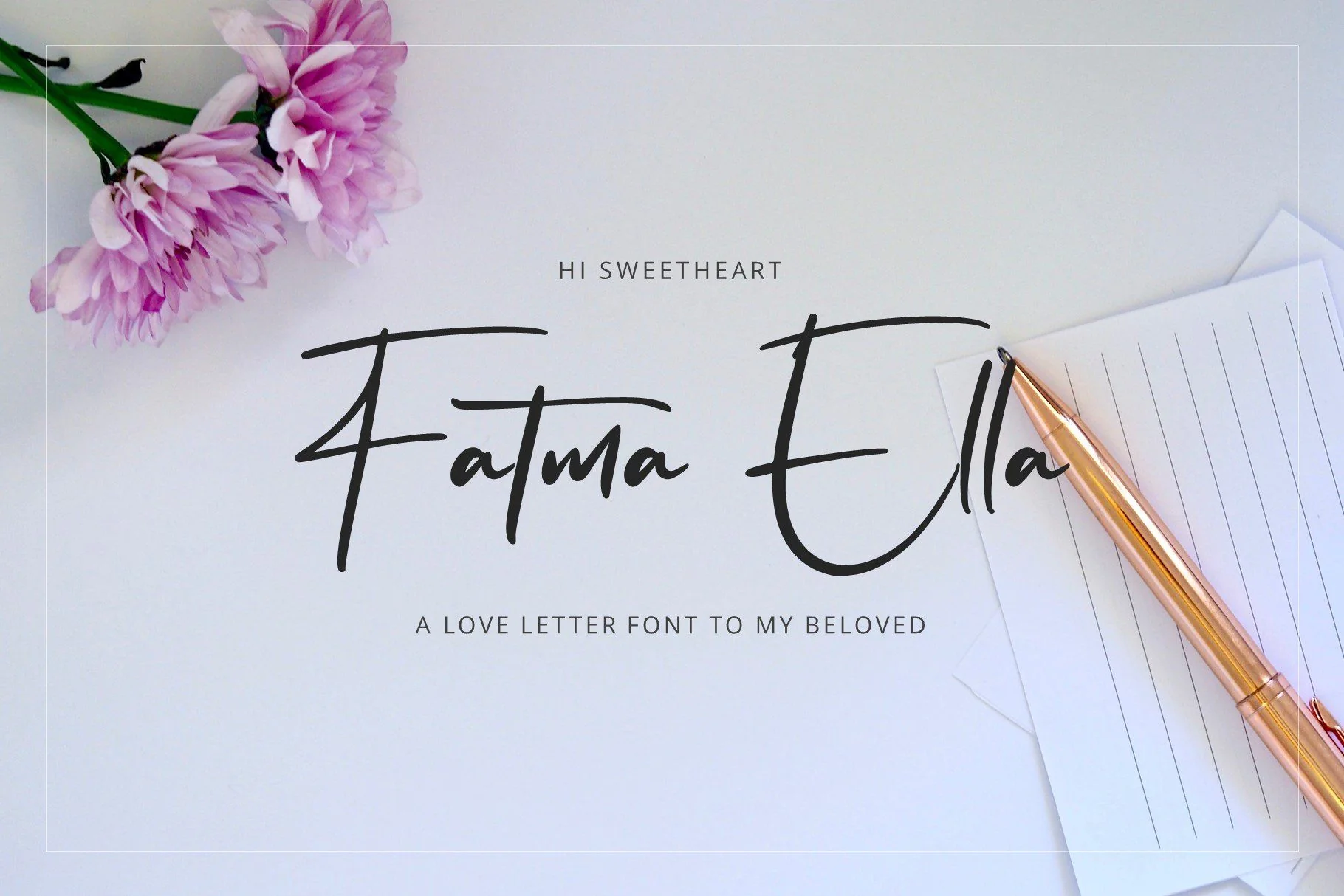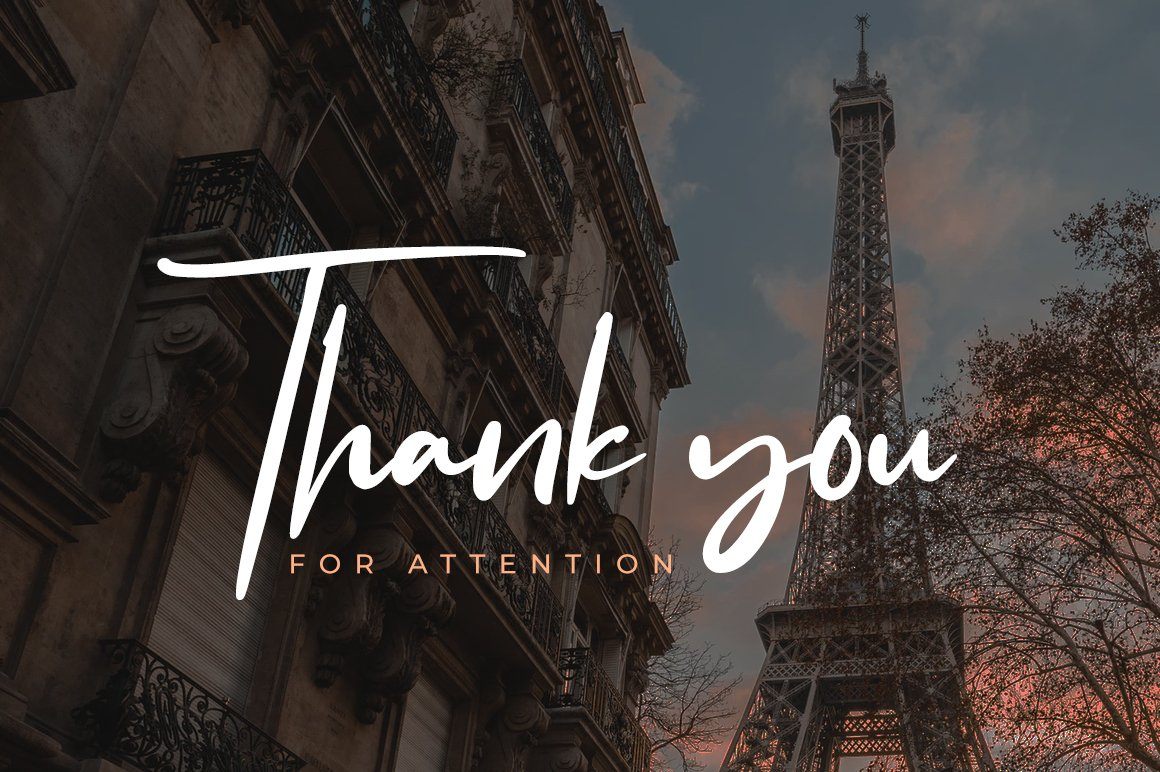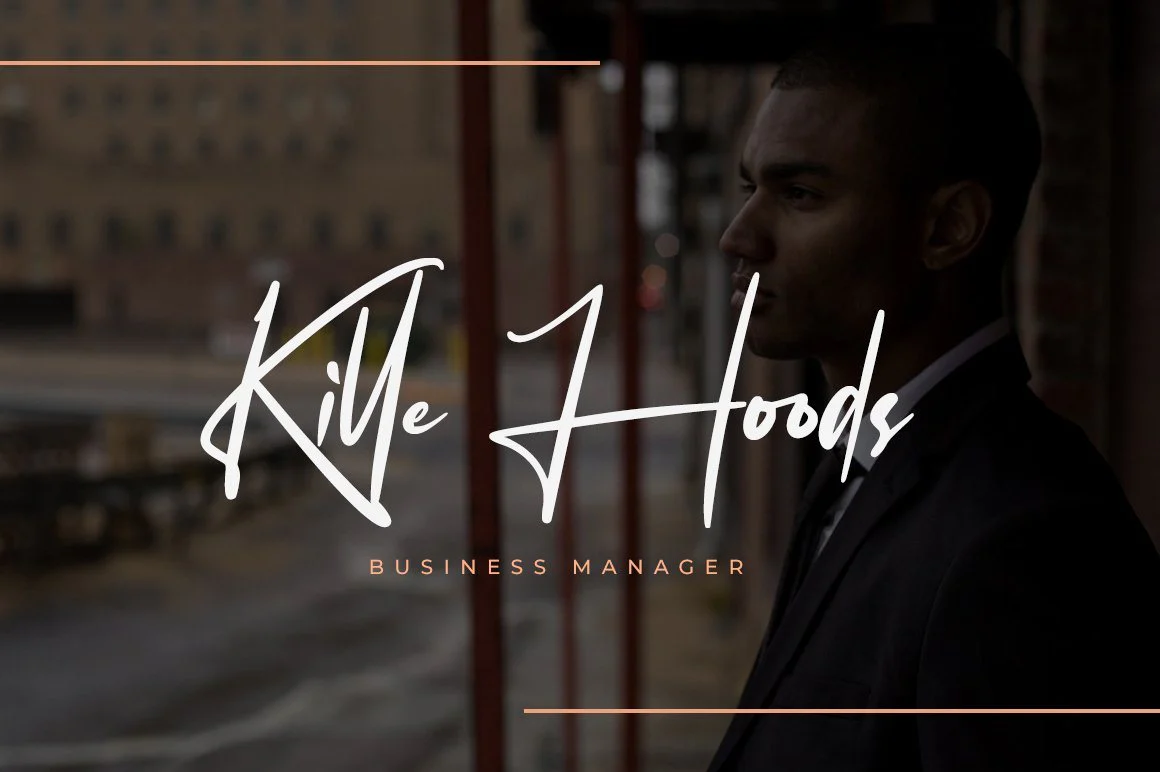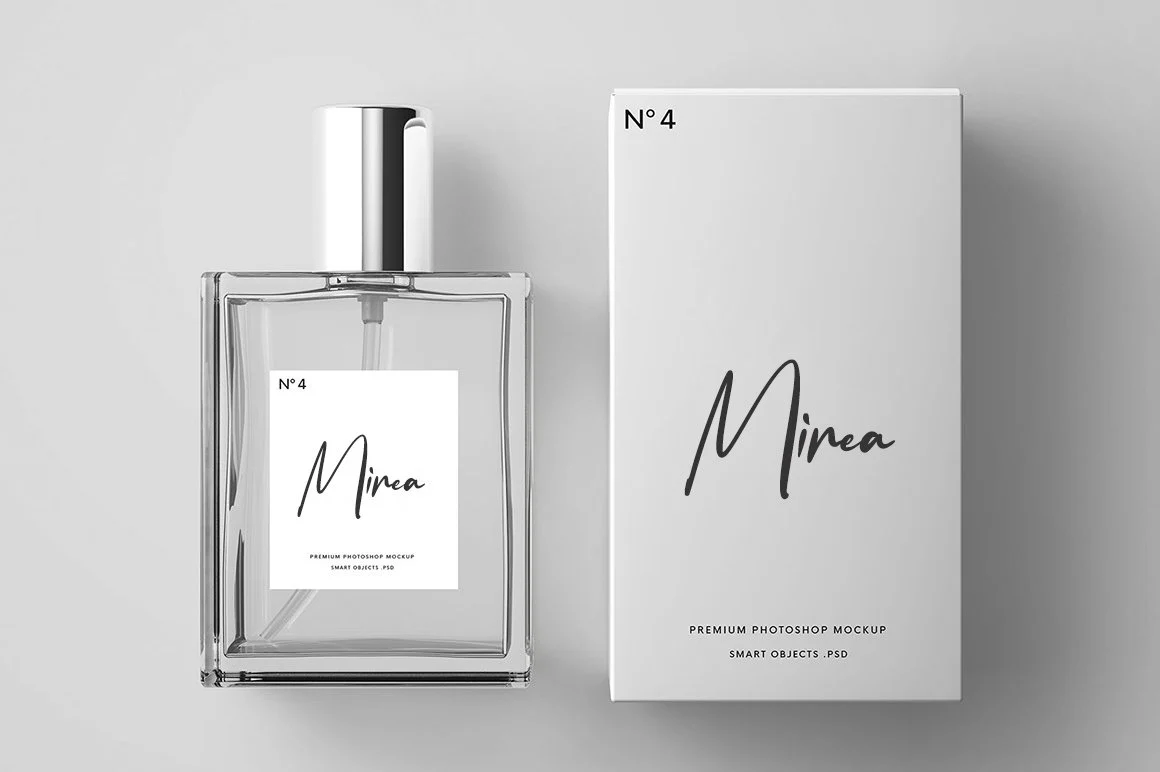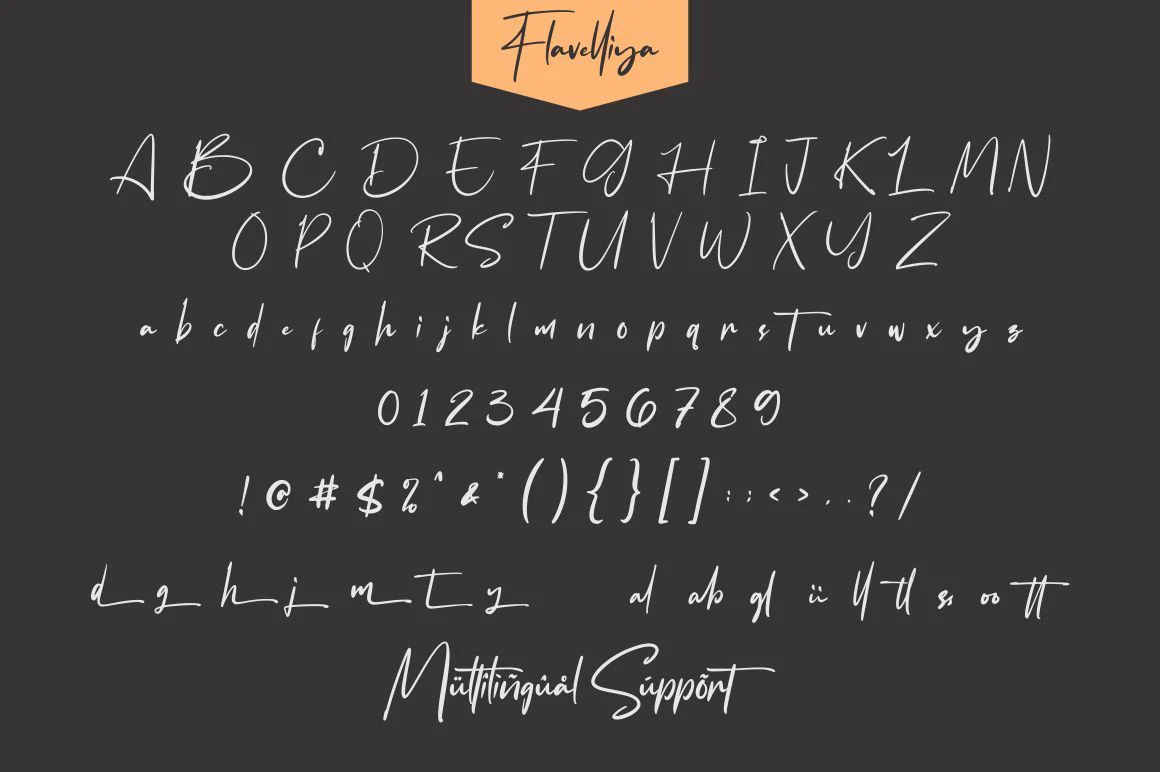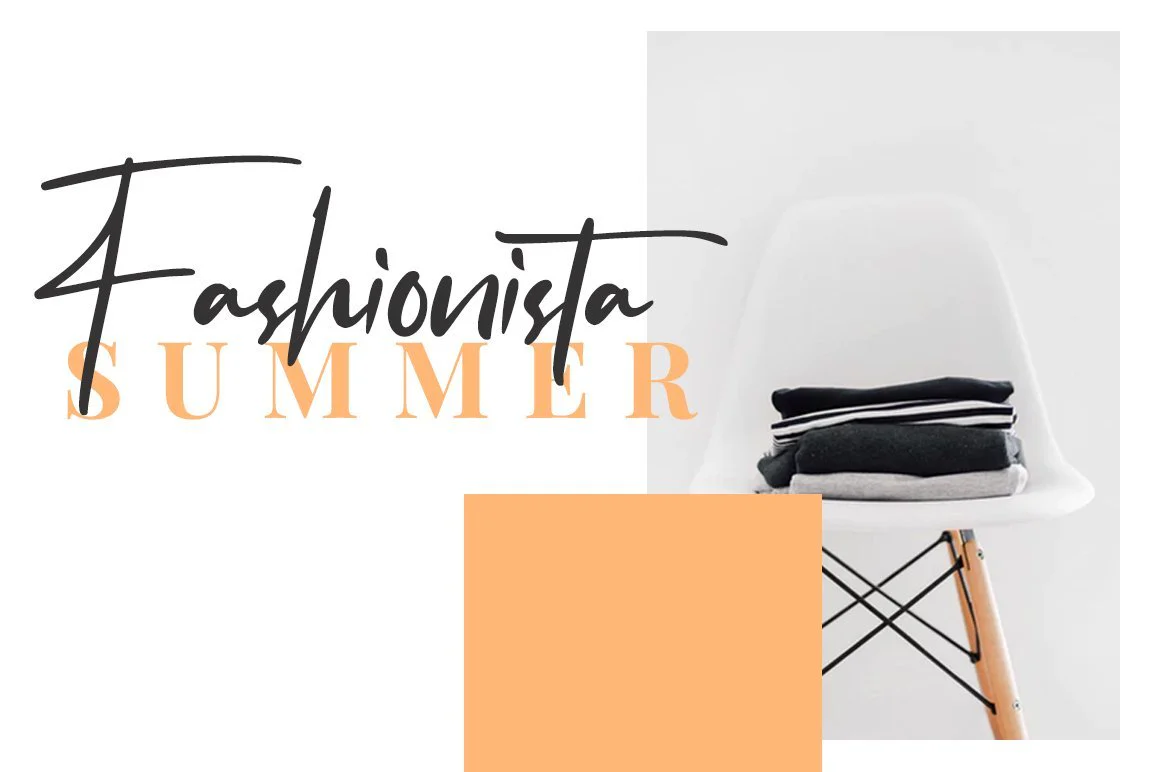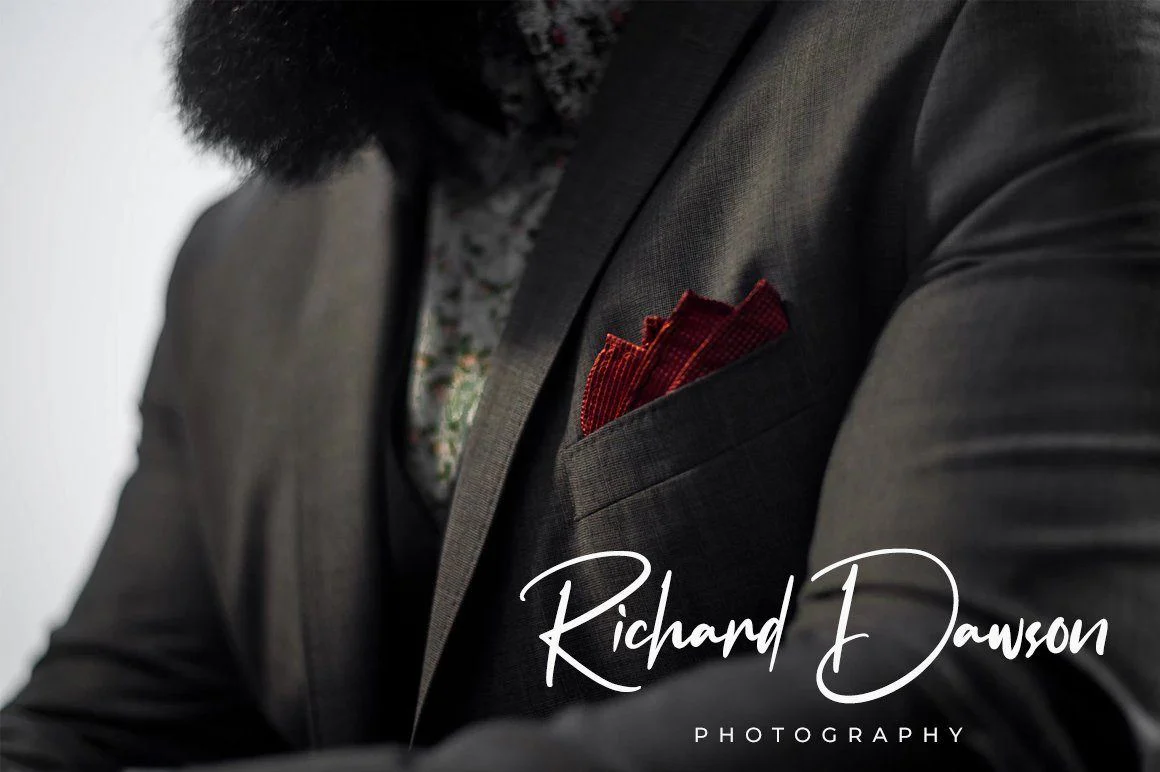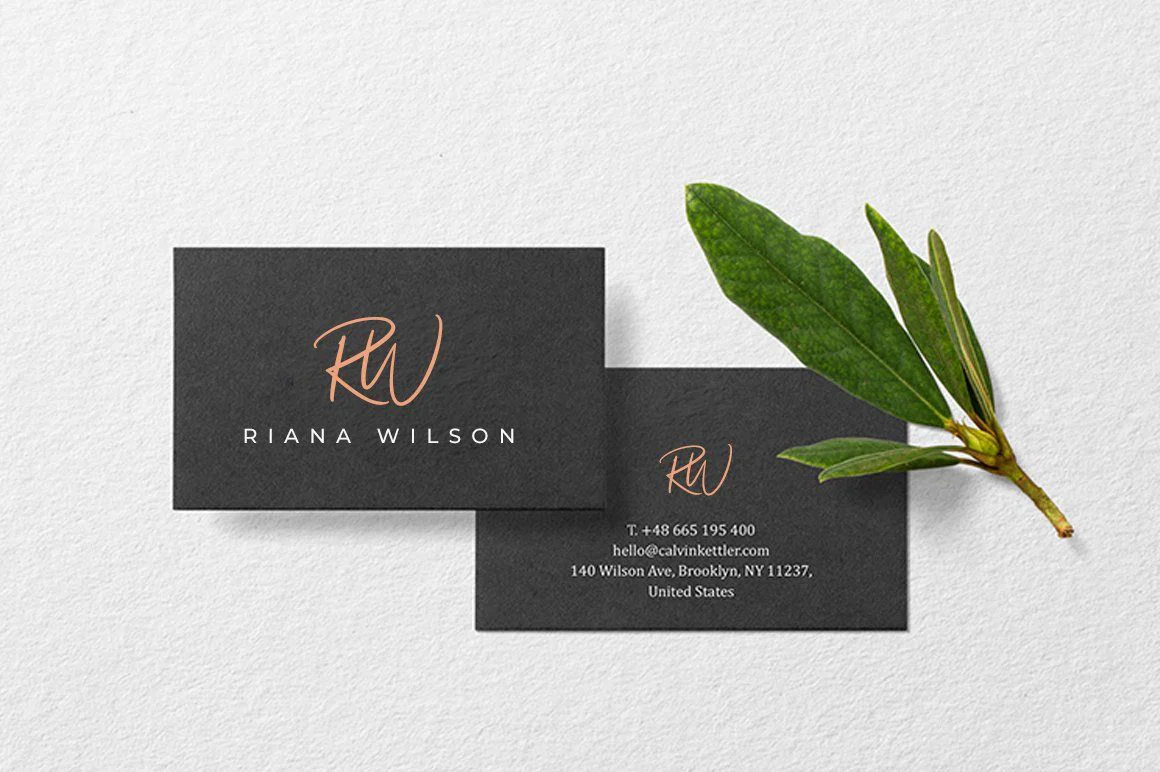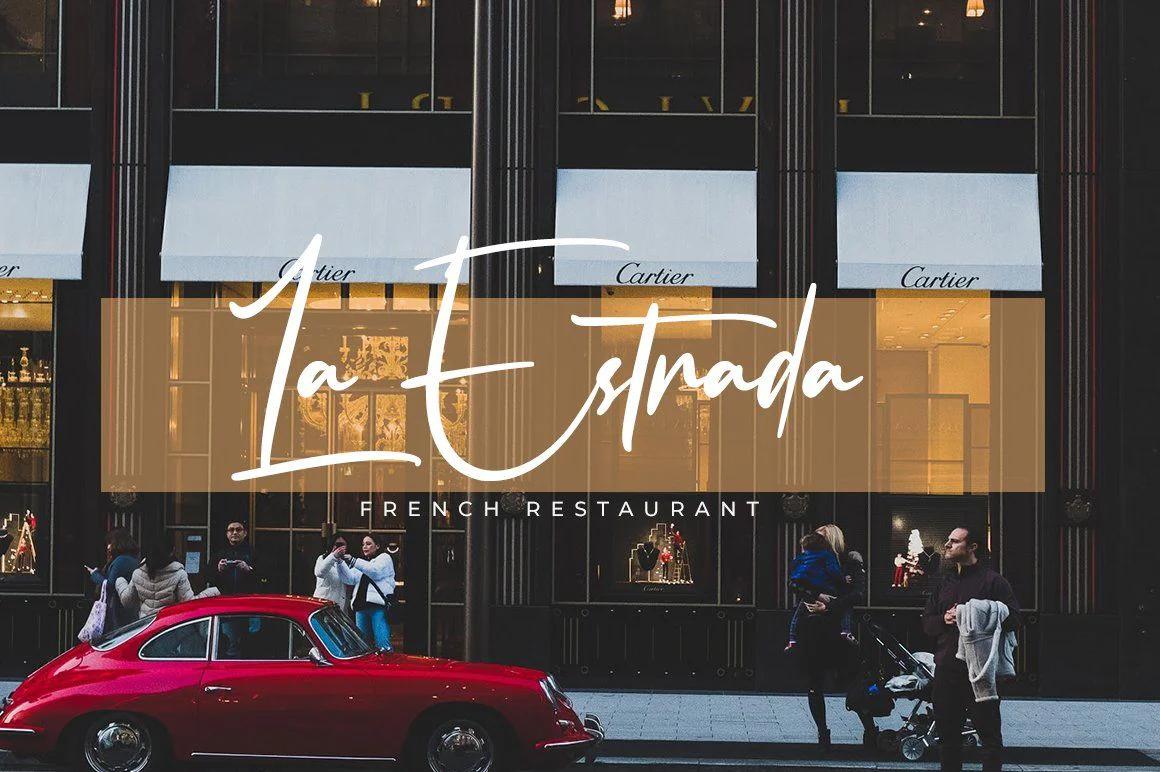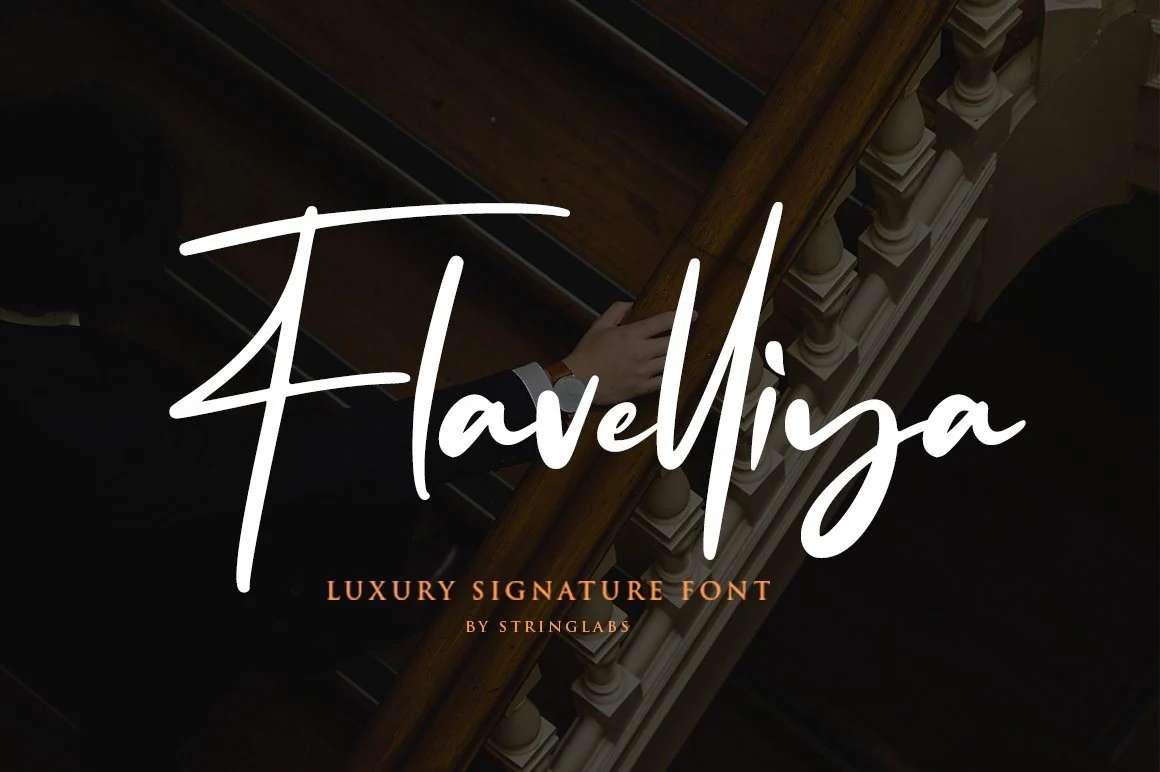
Flavellya - Luxury Signature Font
Introducing Flavellya - Luxury Signature Font
This Font can be used for any variety of purposes, such as:
photography, Wedding Ceremony, Packaging Products, Logo Type, Branding Fashion, T-Shirt Design, Website/Blog, Magazine, Brochures and also can be used for personal purpose.
This Font Template contains Modern, Elegant, creative, Professional and Unique Concept.
- Uppercase & Lowercase letters
- Alternative Characters Ready